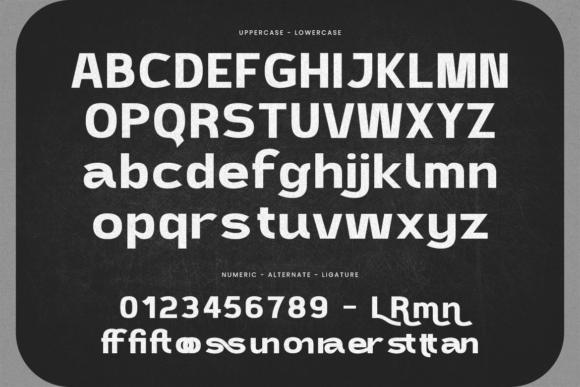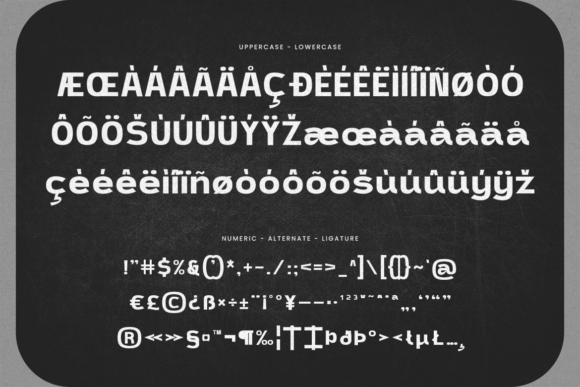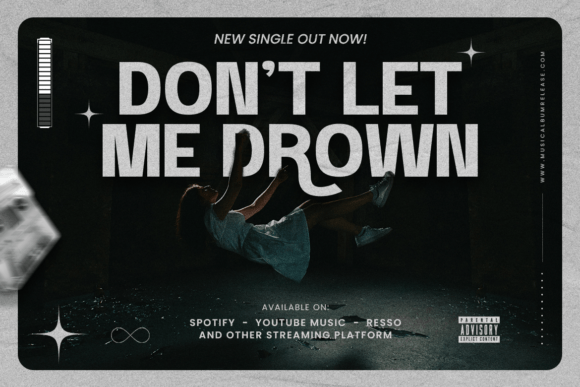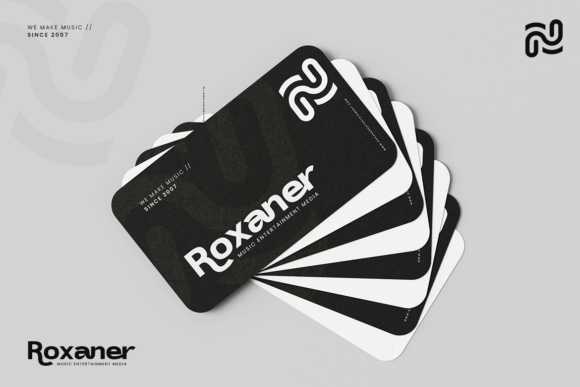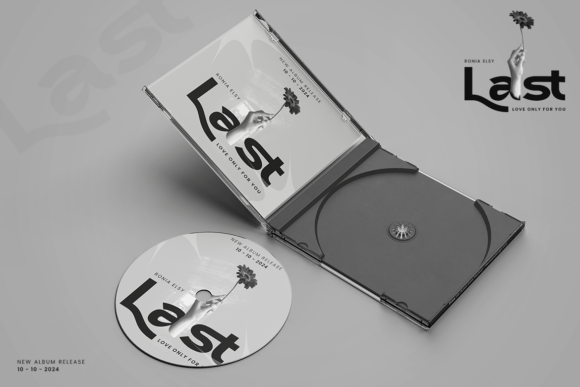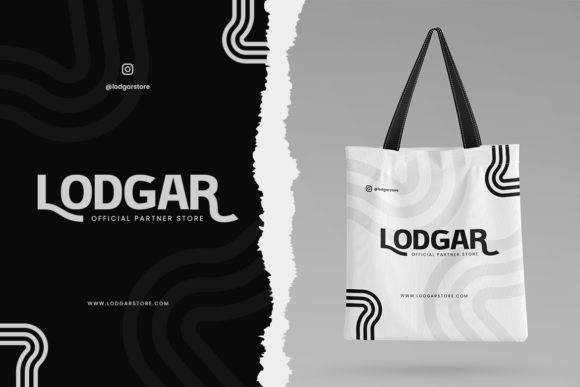
Introduction to Nagaros Font
Nagaros is a modern and unique display sans-serif font designed for maximum impact.
It features bold, sturdy letterforms with a slightly rounded and humanist touch, giving it a friendly yet powerful presence The font has a clean, minimalist aesthetic but with subtle, distinctive character shapes that make it stand out.